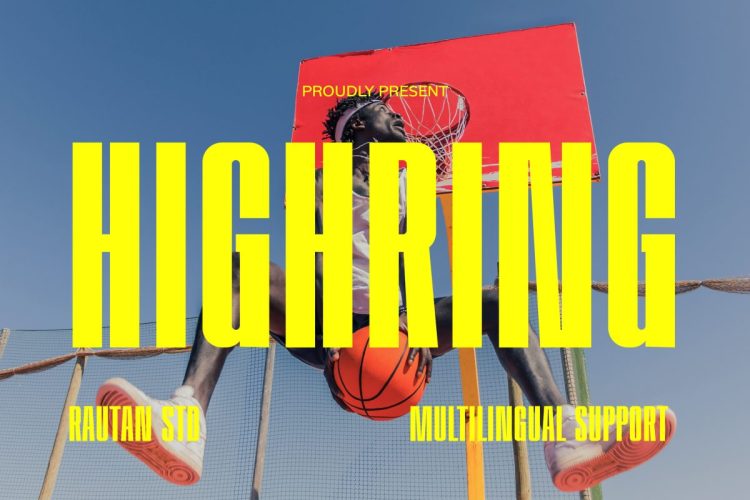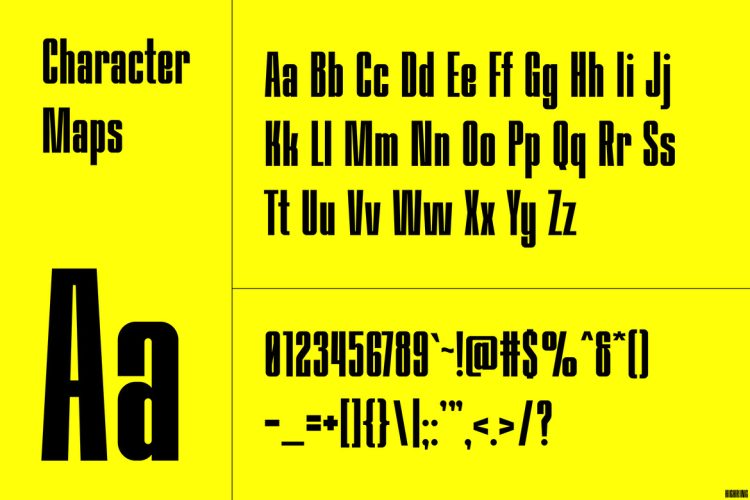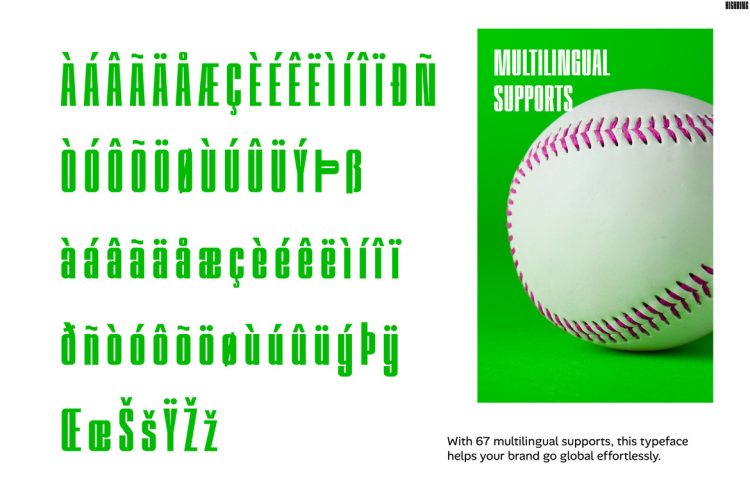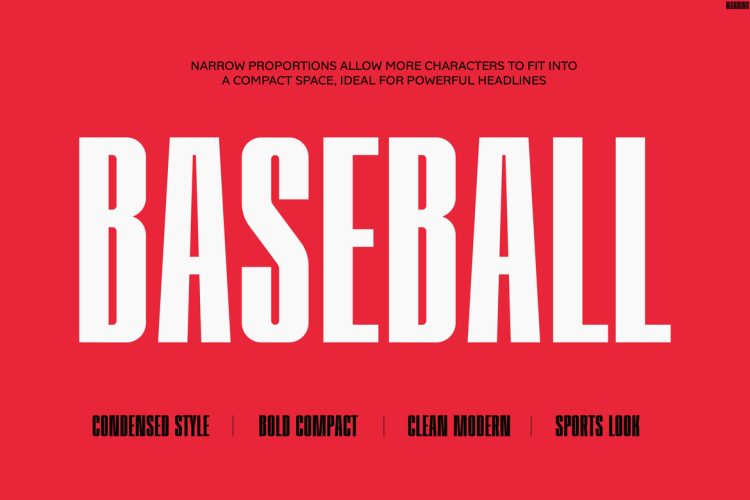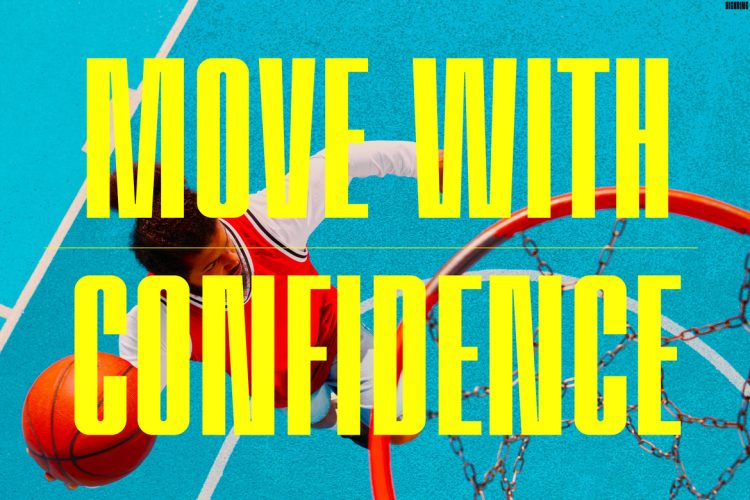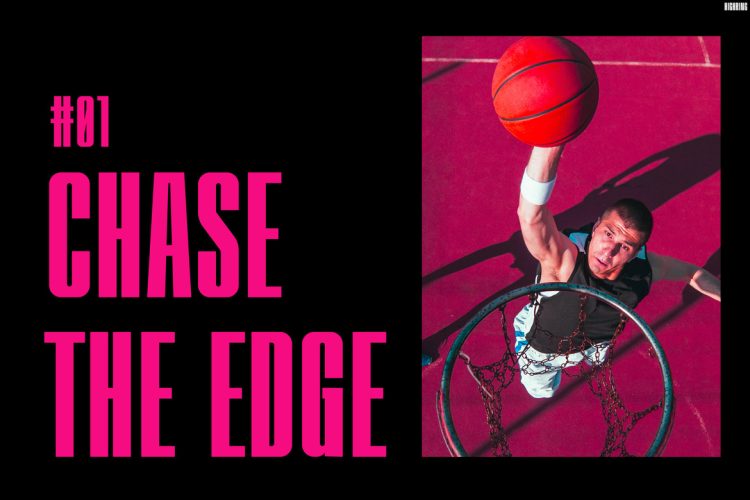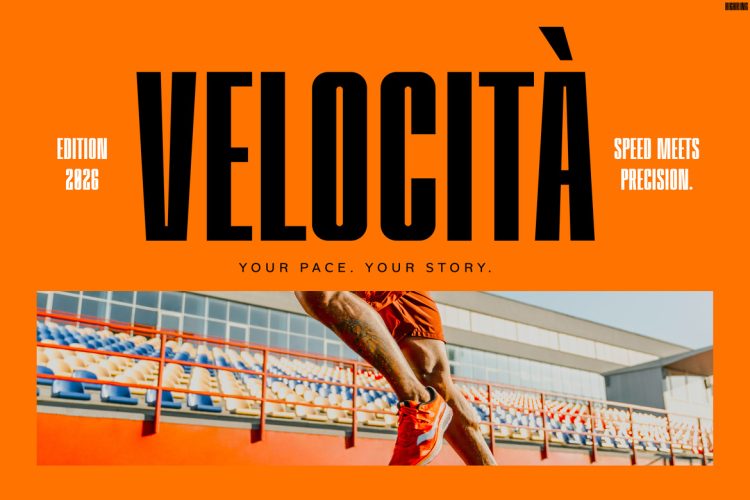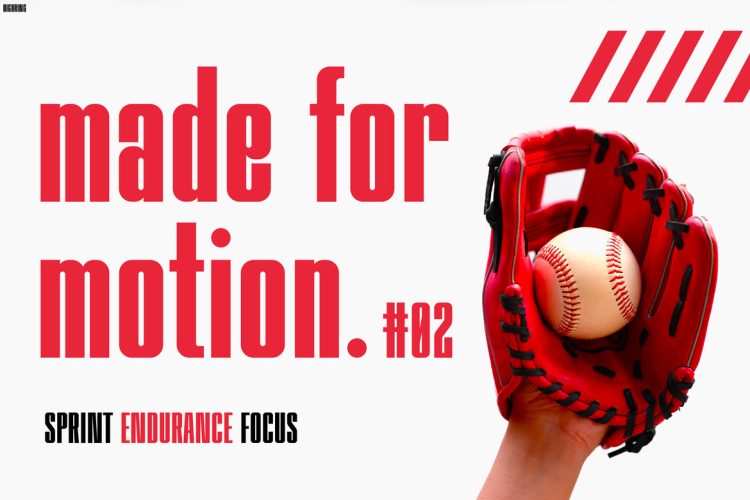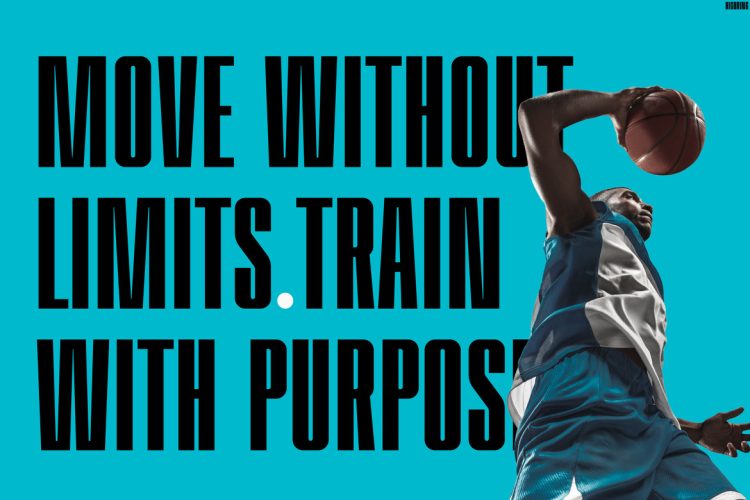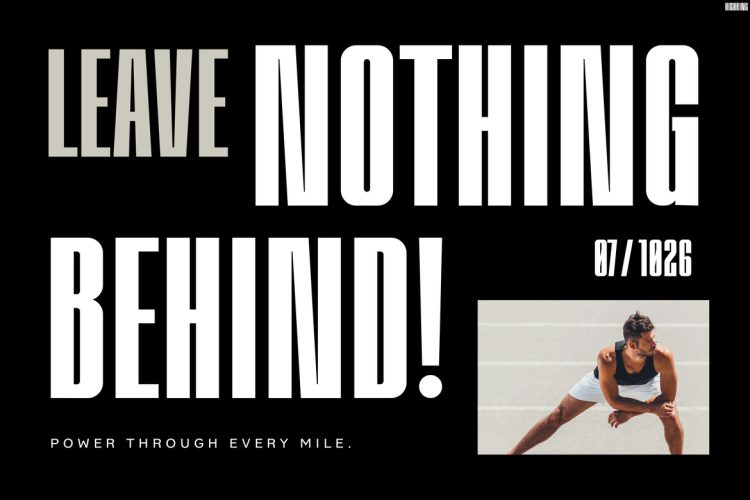
Sport Font HIGHRING โ Push Harder. Stand Taller. Win Louder.
Sport Font HIGHRING transforms competitive energy into bold typography that never slows down. Instead of using ordinary sports lettering, HIGHRING combines tall condensed forms, sharp edges, and commanding proportions to create headlines that radiate speed and determination. Moreover, its athletic silhouette builds a strong visual rhythm that immediately captures attention. As a result, every design feels more competitive, more energetic, and more powerful. At the same time, the streamlined structure keeps every word crystal clear on both digital screens and printed materials. Furthermore, Multilingual Support for 67 languages allows your brand to perform confidently across international markets.
Sport Font HIGHRING Built for Champions
Sport Font HIGHRING helps designers create visuals that inspire action and confidence. Not only does it strengthen bold headlines, but it also gives every project a professional sports identity. In addition, its modern athletic style fits baseball tournaments, basketball promotions, football clubs, fitness campaigns, sports apparel, gym branding, event posters, esports graphics, social media content, and energetic advertising. Likewise, the condensed letterforms maximize impact without overwhelming your layout. Meanwhile, the balanced spacing keeps compositions clean and organized. Consequently, your branding communicates strength, discipline, and ambition from the very first glance.
- Sports branding and clubs
- Baseball and basketball promotions
- Fitness and gym campaigns
- Athletic apparel
- Esports graphics
- Sports event posters
- Social media content
- Logos and merchandise
Play Bigger. Design Stronger.
If your project demands typography that performs under pressure, HIGHRING delivers every time. Furthermore, its bold athletic character instantly boosts visual impact. As a result, your headlines command attention while your brand leaves a lasting impression. Finally, choose HIGHRING today and give every design the confidence, speed, and winning attitude it deserves.